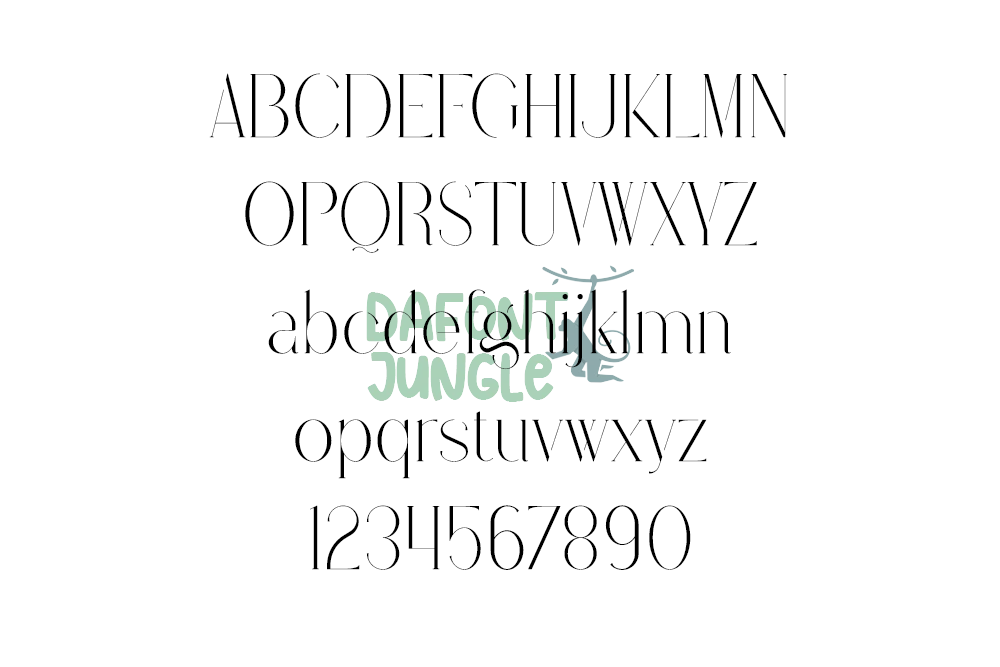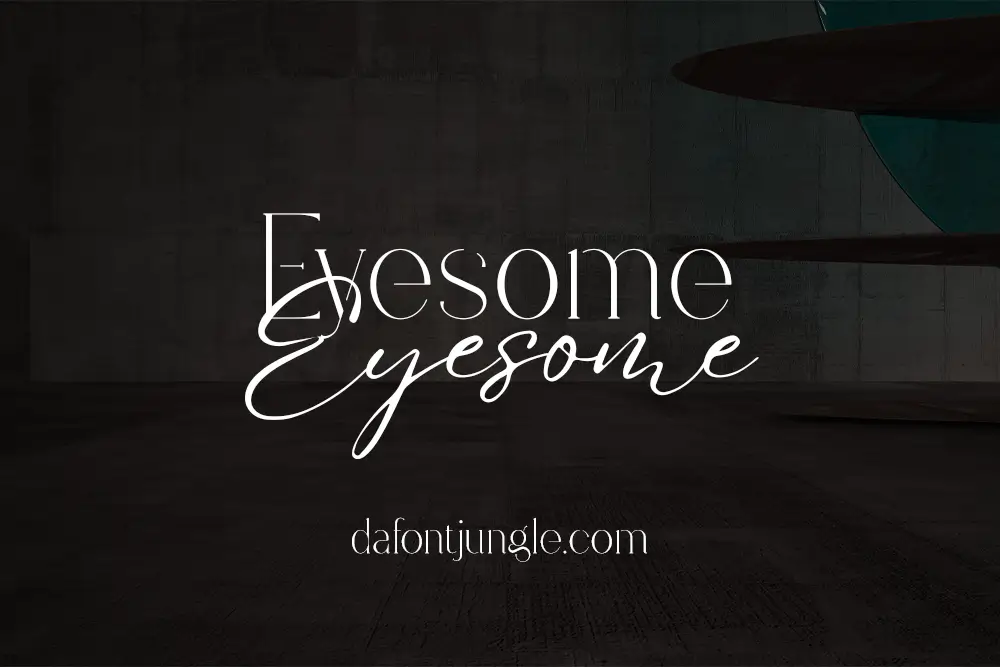
Eyesome – Elegant and Organic Font Duo
Eyesome is a clean and stylish modern font duo. It includes Regular, Italic, and Script styles. Each style looks great in both big and small sizes. This font has a soft, organic feel that works well in many types of design.
You can use Eyesome for logos, product packaging, homeware, magazine covers, or social media graphics. It’s easy to use—even in Canva. Multilingual support is included, so it works across many languages.